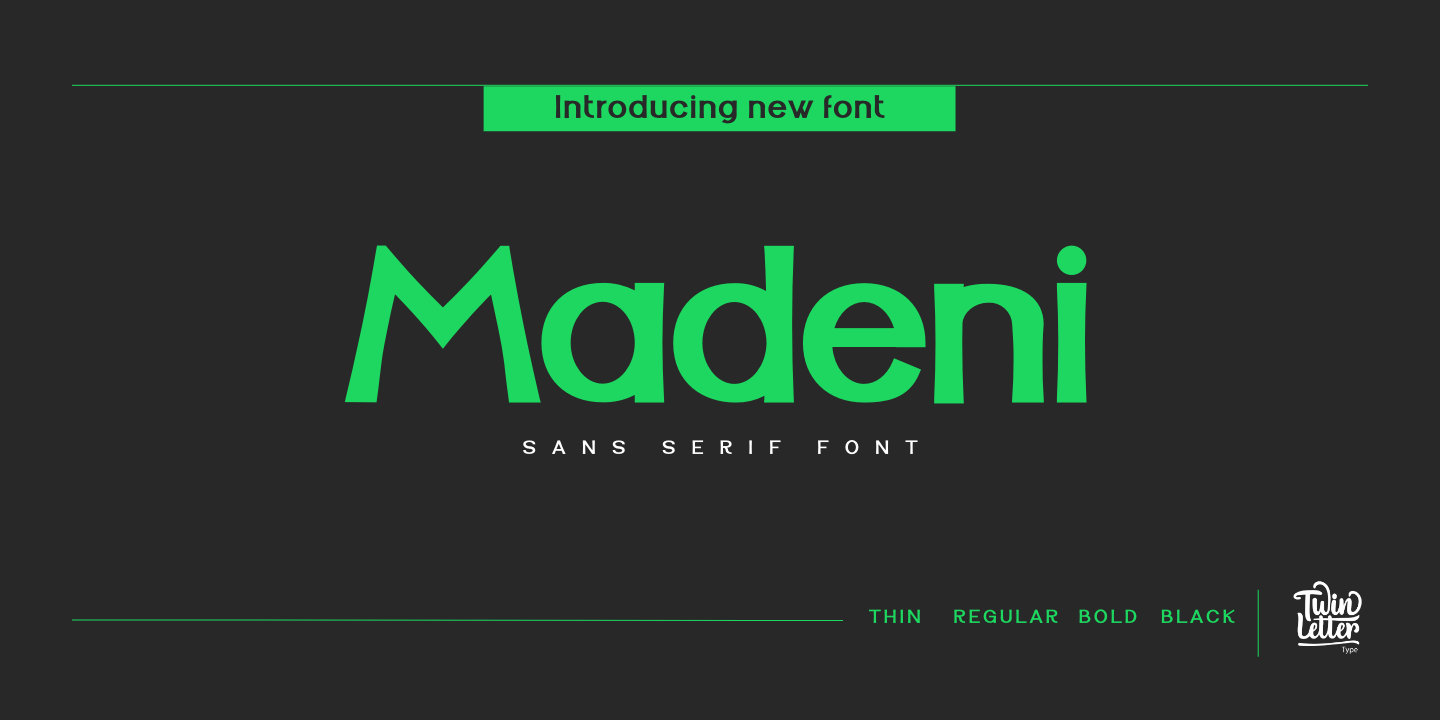
Madeni Font is perfect for industrial manufacturing branding, mining company logos, metalworking shop signage, heavy machinery advertising, steel fabrication companies, construction equipment marketing, automotive parts packaging, engineering firm identities, foundry business promotions, and robust industrial product catalogs. Its strong metallic character makes it ideal for projects requiring industrial strength and manufacturing authenticity.
What makes Madeni Font exciting is its powerful embodiment of industrial strength and metallic precision with bold letterforms and robust characteristics that capture the essence of heavy manufacturing and engineering excellence. The font features strong structural elements, metallic-inspired details, and durable character construction that create authentic industrial atmosphere and manufacturing appeal. Its sturdy personality brings reliability and strength to contemporary designs while maintaining the clarity essential for industrial communications and technical presentations. The carefully crafted metallic elements ensure visual durability while preserving the distinctive character that embodies the essence of industrial craftsmanship and manufacturing excellence.
Madeni Font comes in multiple industrial variations including Regular, Bold, Heavy, Condensed, and Steel styles. Each family member maintains the distinctive metallic character while offering comprehensive flexibility for industrial typography and manufacturing brand system development. The complete font family includes alternate characters, industrial symbols, and metallic decorative elements that provide extensive tools for creating robust industrial design experiences and authentic manufacturing brand storytelling.
Whether you're developing industrial brands, manufacturing companies, or heavy-duty equipment projects, Madeni Font Free Download provides the metallic strength needed to communicate with industrial audiences and manufacturing professionals who appreciate engineering quality and industrial reliability. The font's robust appeal resonates with engineers, manufacturers, and industrial workers seeking authentic industrial credibility and metallic sophistication. Its comprehensive character set includes industrial symbols and metallic marks, making it perfect for creating complete manufacturing brand systems and memorable industrial storytelling across diverse heavy-duty applications and engineering-focused design projects that celebrate industrial craftsmanship and manufacturing excellence.